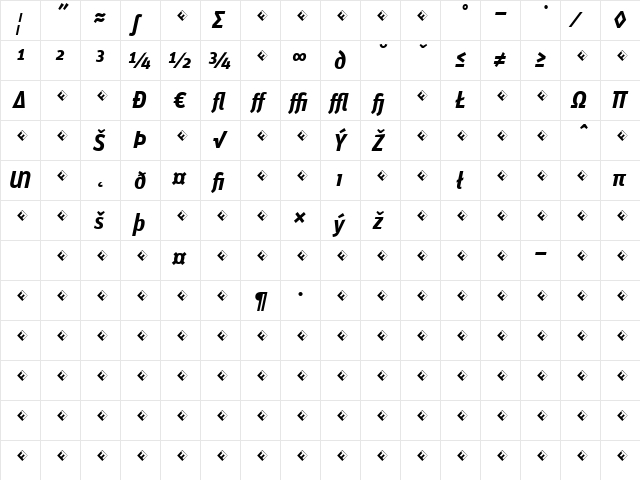
Unit-BoldItalicTFExpert Regular Font Preview
| Foundry | Erik Spiekermann, Christian Schwartz; published by FontShop International for the FontFont Library |
| Designer | Erik Spiekermann, Christian Schwartz |
Design Context for Unit-BoldItalicTFExpert Typeface
Unit-BoldItalicTFExpert offers clean, dependable letterforms without strong stylistic allegiance, making it a practical choice for designers who need flexibility. Its italic angle brings a sense of urgency and motion to the letterforms. The heavy weight commands attention and anchors typographic hierarchies.
Pro Tip: Try Unit-BoldItalicTFExpert for annotation and caption copy alongside an upright companion — the contrast in angle creates a dynamic but ordered typographic system.